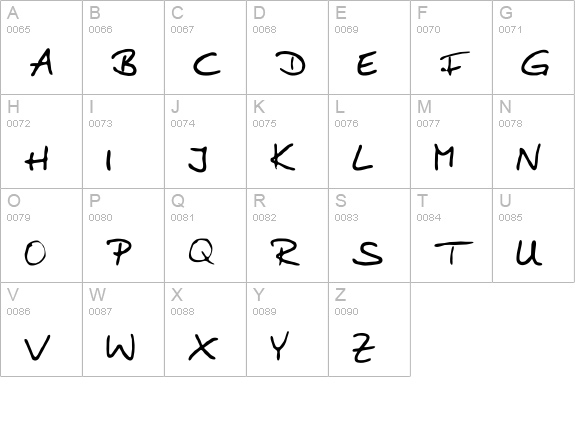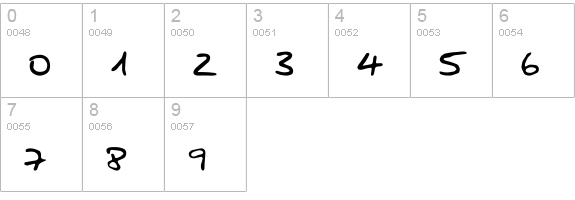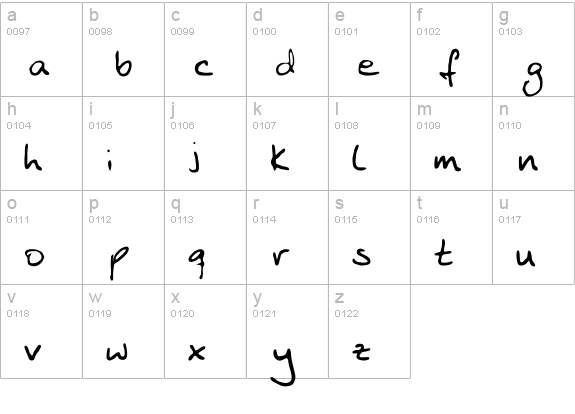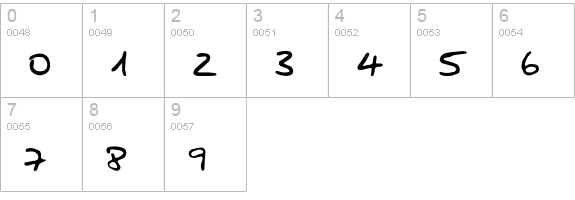
Anke Print Font Details
Anke Print font is a modern and stylish typeface that exudes elegance and sophistication. Its sleek lines and unique curves make it perfect for a wide range of design projects, from branding to editorial design. This versatile font is sure to make a statement and elevate any design it is used in. What's even better is that Anke Print font is completely free to download at FontsMarket.com. This means you can access this beautiful font and use it in your projects without any cost. Don't miss out on this amazing opportunity to enhance your designs with the stunning Anke Print font. Download it now and start creating visually striking and memorable designs today!